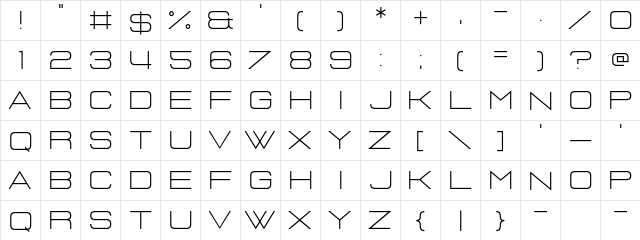
Jasmine Laslo Regular
| Designer | Allison James |
Design Context for Jasmine Laslo Typeface
Jasmine Laslo offers clean, dependable letterforms without strong stylistic allegiance, making it a practical choice for designers who need flexibility.